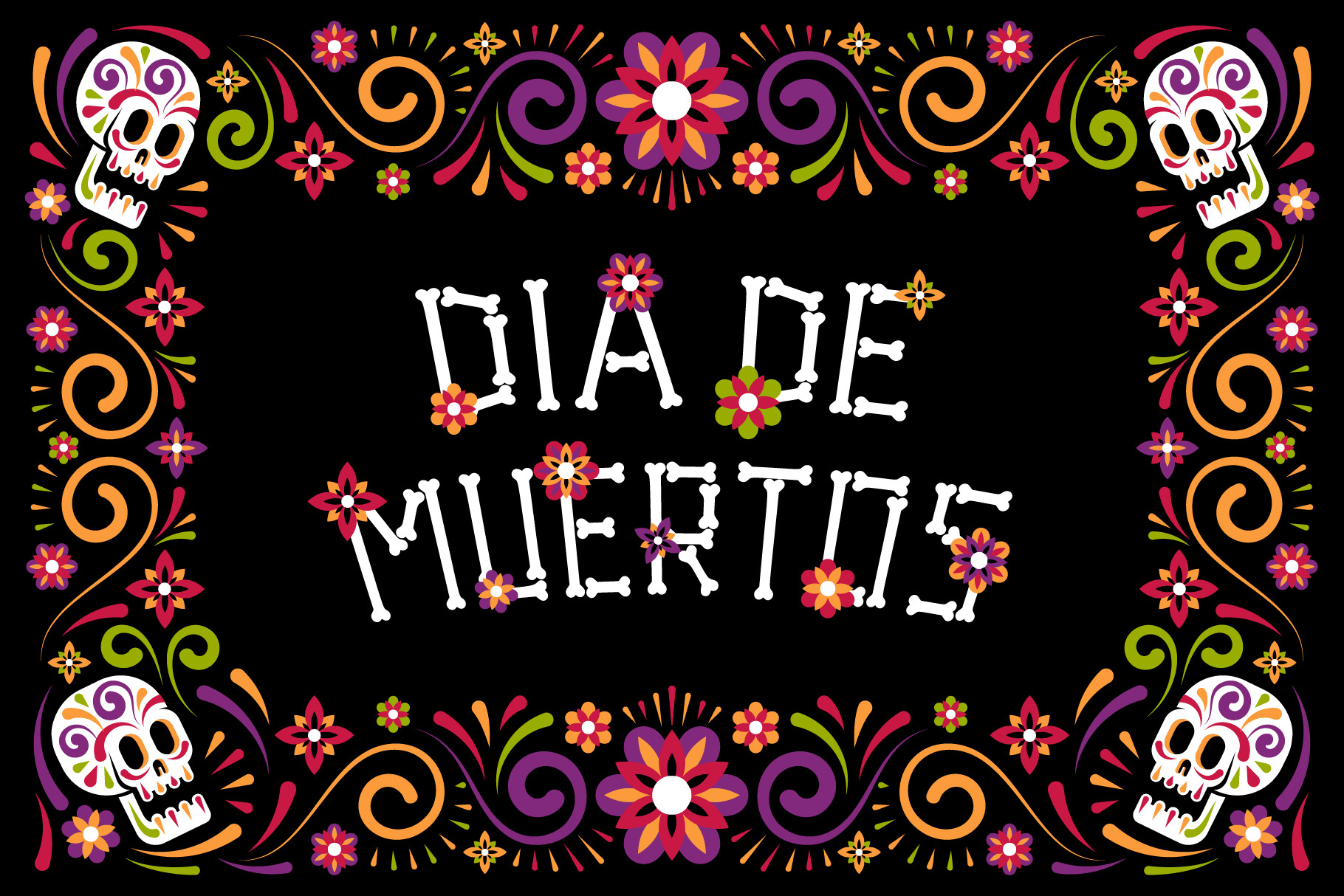
Day of the dead celebration poster with sugar skull and flowers. Dia de los Muertos floral frame. Dia de Muertos mexican halloween floral flyer. Day of dead with skeletons and sugar skull.
- 6 ready Day of the Dead floral frames
- 2 skeletons and 4 sugar skulls
- Dia de Muertos alphabet
- square extra frame